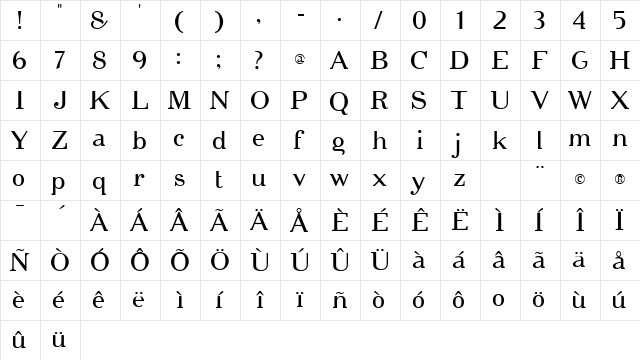
cipher Regular
Design Context for cipher Typeface
cipher offers clean, dependable letterforms without strong stylistic allegiance, making it a practical choice for designers who need flexibility.